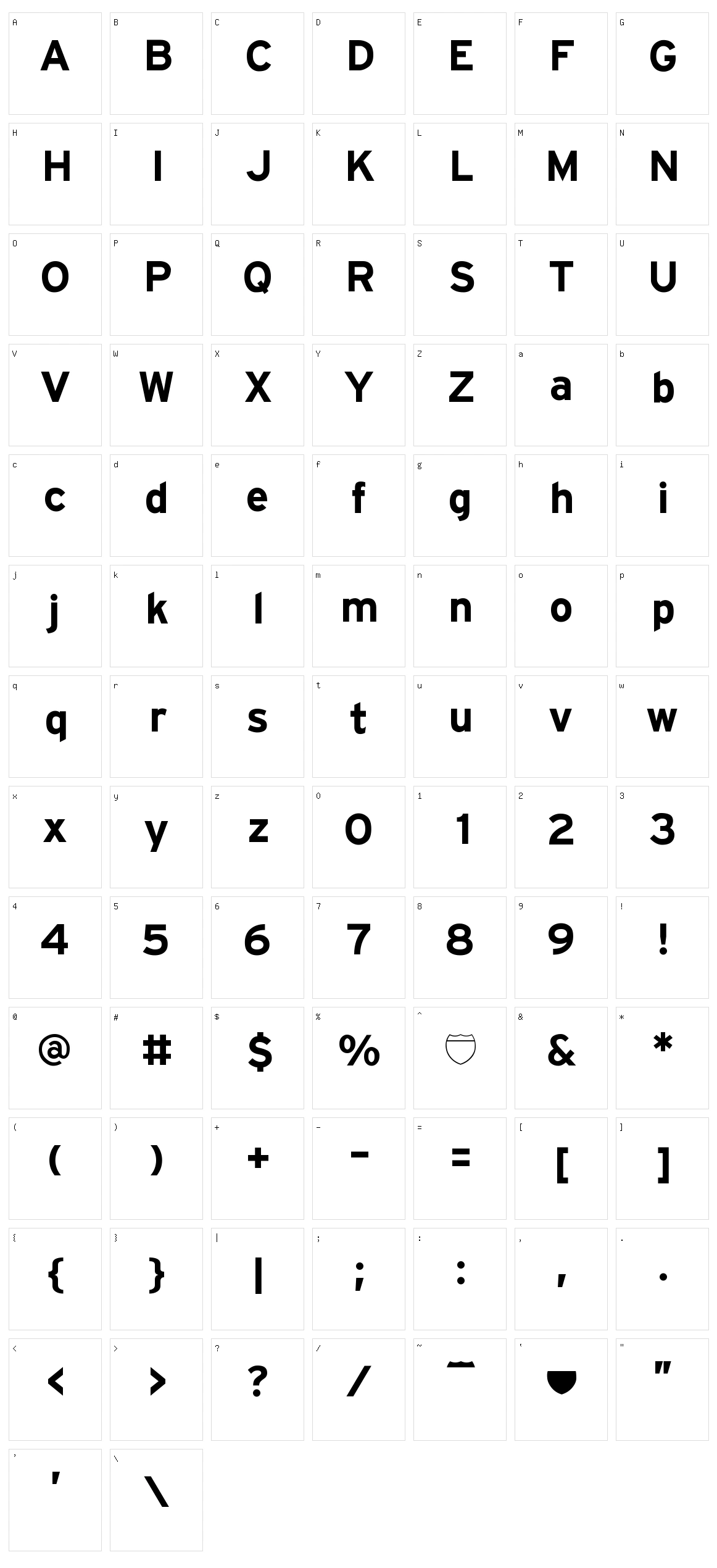
Font: Hit the Road
Created By: Matthew Welch
About the font:
This font is based on the lettering on the signs of our nation's Interstate
Highway System. Well, my nation's anyway. Unless you also live in the United
States, in which case, yes, our nation's. More